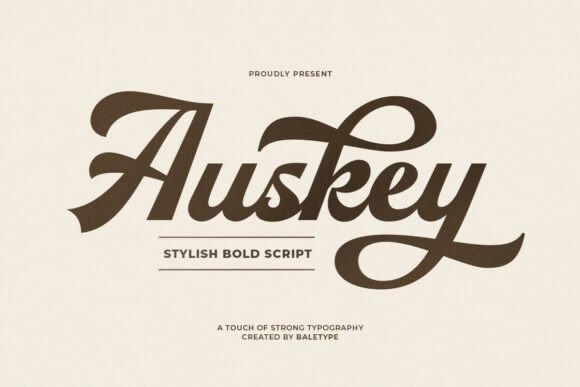
The Auskey Font: A Retro Elegance for Your Designs
What Makes Auskey Special?
Auskey is a bold and clean script font that brings a retro and elegant charm to your designs. Its unique and stylish style makes it perfect for logotypes, quotes, branding, and even wedding invitations. This font adds character and personality to any project, making it a versatile addition to your font library.
What I Love About Auskey ✨
• ✅ Unique and stylish retro elegance
• ✅ Clean and bold design
• ✅ Variety of alternates for creative freedom
• ✅ Supports multiple languages
• ⚠️ Limited use for body text due to its bold nature
• ⚠️ Some users might find the retro style too distinctive for certain projects
The Story Behind Auskey
While the exact origins of Auskey might not be well-documented, it’s clear that it was designed with a passion for retro elegance and versatility. The creator aimed to produce a font that could bring a touch of classic sophistication to modern designs, making it suitable for a wide range of creative projects.
Q: What type of projects is Auskey best suited for?
A: Auskey is perfect for logotypes, quotes, branding, wedding invitations, and any project that requires a touch of elegance and uniqueness.
Q: Does Auskey support multiple languages?
A: Yes, Auskey supports multiple languages, making it a versatile font for international projects.
Q: Can I use Auskey for body text?
A: Due to its bold nature, Auskey is better suited for headings and titles rather than body text. However, feel free to experiment based on your project’s requirements.
With its unique blend of retro charm and elegance, Auskey is a valuable addition to any designer’s font library. Whether you’re working on a wedding invitation, a brand logo, or a creative project, Auskey offers the versatility and style to make your designs stand out.